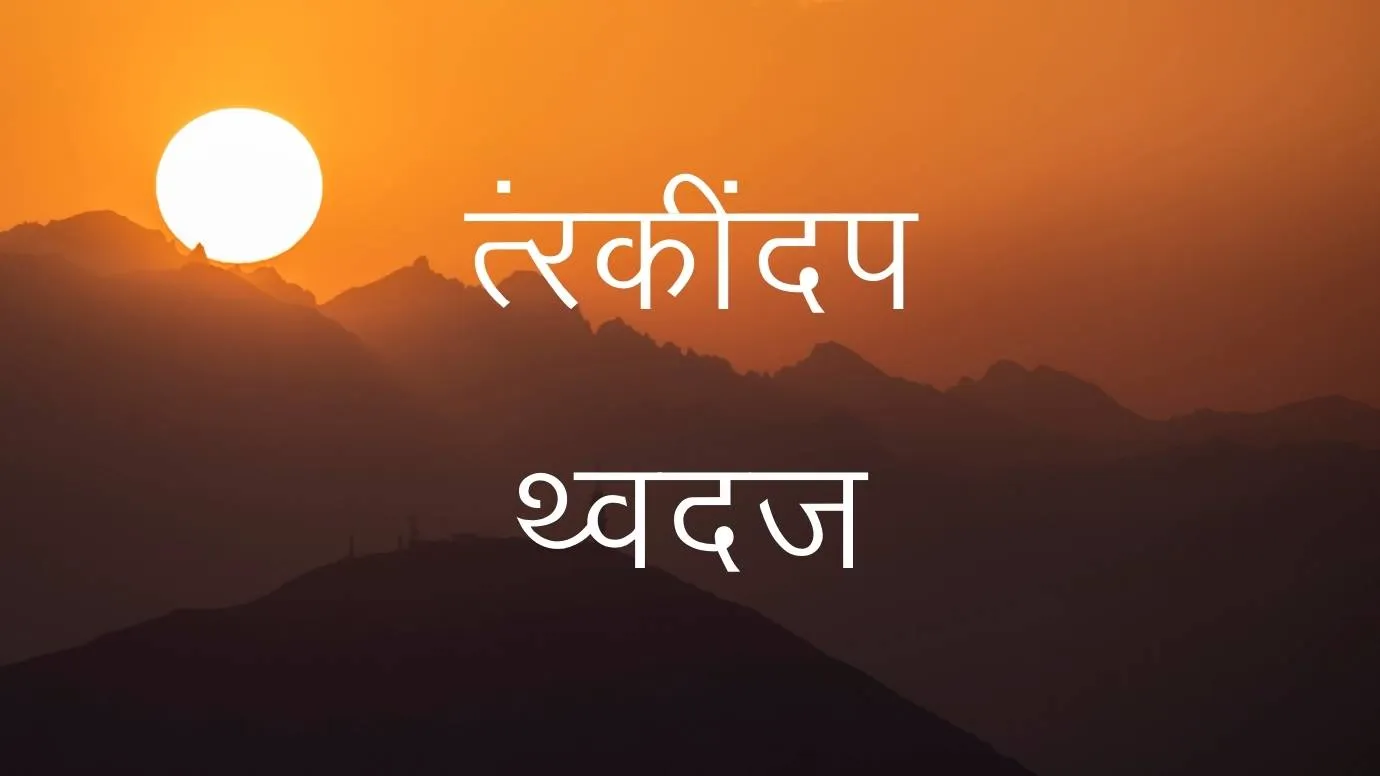
DevLys 010 Font Free Download
DevLys 010 Font is a beautiful font was designed by Satpal Singh. It is available in Hindi typeface. It is released in the 20th century in a famous foundry. This font has permitted to all users for its copy-paste function.
It is perfect for other high-quality Hindi and Sans-serif fonts such as  Hind Bold Font and Karma Bold Font. Due to its bold characters, this typeface gives an attractive look to your text. Than those of other Sans-serif typefaces, it gives a unique and soft look.
DevLys 010 Font Family
NameDevLys 010 Font
TypeHindi
DesignerSatpal Singh